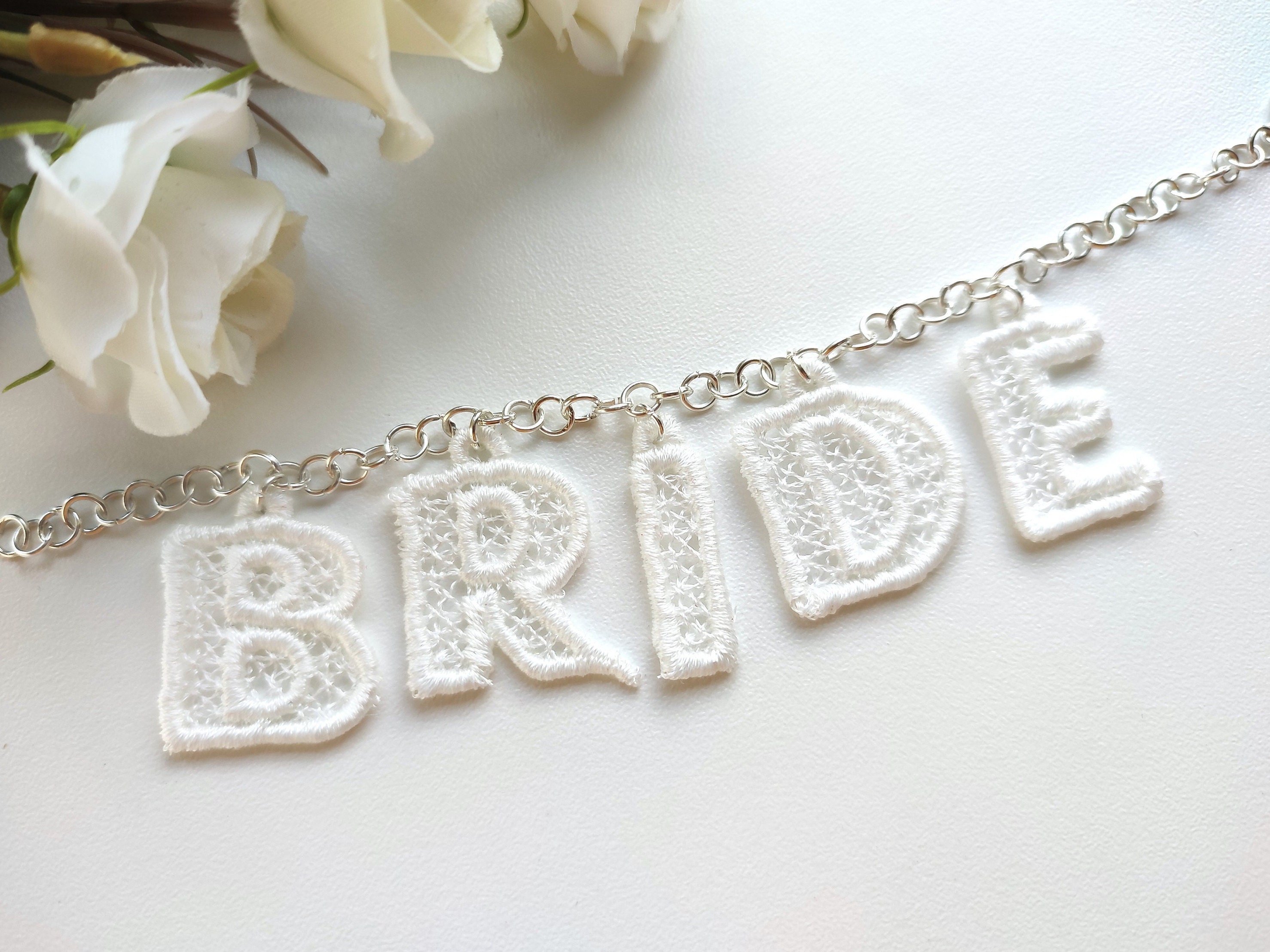
Bridesmaid Bride Lace Font FSL freestanding lace Hanging Monogram letters machine embroidery designs, wedding alphabet in assorted sizes BX
Bridesmaid Bride Lace Font FSL free standing lace Hanging Monogram letters machine embroidery designs, wedding alphabet in assorted sizes BX
Uppercase A-Z
Freestanding lace! The letters are stitched onto a non-woven water-soluble stabilizer.